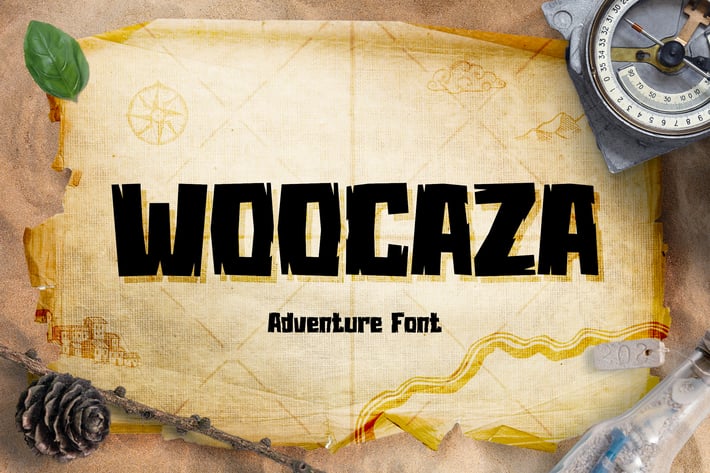
Woocaza - Kids Adventure Font
Looks like a wood plank with a bit of fun in it, Woocaza will be the font for any outdoor place that will attract children and families with a great read-ability as well.
Go explore the world with it.
Suit perfectly for adventurous children's books market, online games, teens event posters, school supplies font, posters, movie titles, youtube covers, youtube thumbnails, social media page covers, and so on...